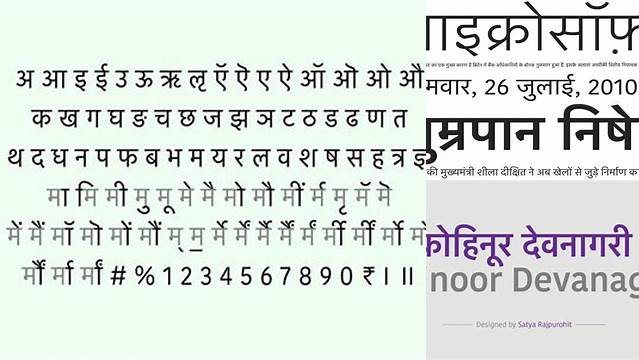
1. What is the Kohinoor Devanagari Font?
Alright, before we jump into the download, let's get to know the star of the show: the Kohinoor Devanagari font. This font is a specific typeface designed to display Marathi and other Devanagari script languages. What makes it special? Well, it's designed to be easy to read and visually appealing, which is super important, especially when you're writing in a language like Marathi, which has unique characters and combinations. The Kohinoor font isn't just a collection of letters; it's a design that considers the flow and harmony of the Devanagari script. Think about how the different characters connect and how they look together on a page – the Kohinoor font is crafted with these details in mind. This means your Marathi text will look clean, professional, and, frankly, more beautiful! Think of it like this: You wouldn't use a clunky, outdated font for your English documents, right? The same applies to Marathi! Using the Kohinoor font can elevate your documents, websites, and creative projects and show your commitment to quality and presentation. Understanding this is vital when you want to use it correctly. When choosing a font, you're not just picking letters; you're picking a style, a mood, and a statement about the content. The Kohinoor Devanagari font is one of the best options.
Now, you know why it’s a great choice! Now, let's talk about the design itself. The Kohinoor font is crafted to look great at various sizes. Whether you're writing a huge headline or small body text, this font maintains its clarity and elegance. This flexibility is a huge plus for anyone who uses it in different contexts, from creating posters and presentations to writing blog posts or articles. So, get ready to make your Marathi text shine! This font is designed to make your Marathi writing stand out, making it both readable and aesthetically pleasing.
2. Why Choose Kohinoor Marathi Font?
So, you're probably wondering why you should choose the Kohinoor Marathi font over other Marathi fonts. Well, I have a few reasons! First off, it's designed with readability in mind. The characters are clear, and the overall design is very easy on the eyes, which is super important when you're dealing with text, especially in a script like Devanagari, which can sometimes get a bit complex. A well-designed font can make a huge difference in how your message is received. The Kohinoor font ensures that your audience can easily understand what you're trying to say without struggling to decipher the characters. In a world overflowing with information, making your text easy to read is essential to grab attention and maintain interest.
Another big plus is its versatility. The Kohinoor font works well in many different contexts. Whether you're creating documents, designing websites, or making presentations, this font can adapt to various needs. This flexibility means you can use it across different projects, saving you the hassle of switching between different fonts. This is great when you want your work to look consistent and professional. Plus, the Kohinoor font often comes in different weights (like bold, regular, and light), giving you even more options to highlight specific parts of your text or adjust the overall feel of your design. Also, the availability is excellent. Because it's a popular font, you'll find it easy to download and use on different operating systems, ensuring you can always access it. When you consider all these aspects, it's easy to see why the Kohinoor font is a great choice.